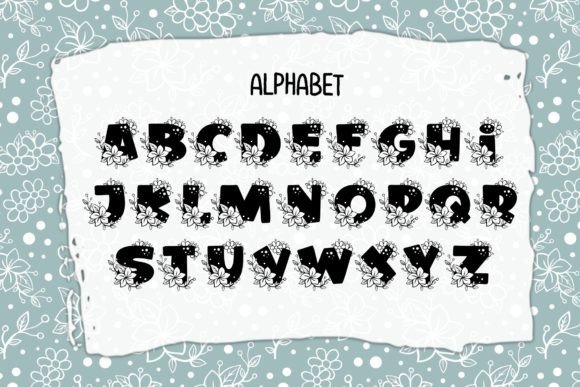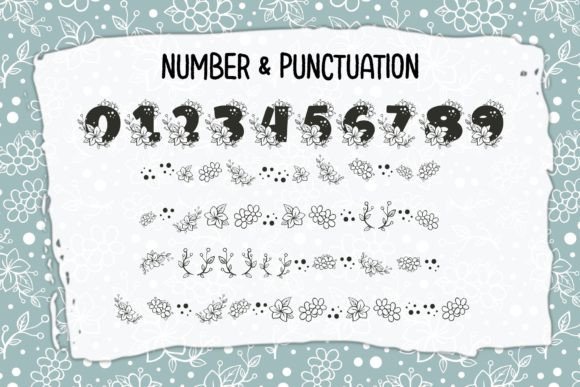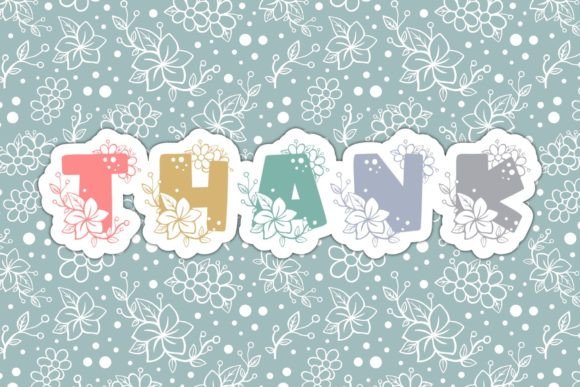
Discover the Charm of Flowers Corner Font: Elevate Your Designs with this Lovely Decorative Font
Are you a designer, crafter, or DIY enthusiast looking for a unique and charming font to elevate your projects? Look no further than Flowers Corner Font! This delightful decorative font is perfect for adding a touch of elegance and whimsy to your logos, branding, social media graphics, and crafty DIY projects. In this article, we’ll dive into the world of Flowers Corner Font and explore its features, uses, and benefits.
What is Flowers Corner Font?
Flowers Corner Font is a beautifully designed decorative font that features intricate floral patterns and elegant lettering. This font is perfect for those who want to add a touch of sophistication and charm to their designs. With its unique and eye-catching style, Flowers Corner Font is sure to make your projects stand out from the crowd.
Features of Flowers Corner Font
So, what makes Flowers Corner Font so special? Here are some of its key features:
• Unique and decorative design: Flowers Corner Font features a one-of-a-kind design that is both elegant and playful.
• Perfect for logos and branding: This font is ideal for creating custom logos, business cards, and other branding materials.
• Great for social media graphics: Add a touch of personality to your social media graphics, such as Instagram posts and Facebook covers.
• Ideal for crafty DIY projects: Use Flowers Corner Font to add a personal touch to your handmade crafts, such as scrapbooking, card making, and sewing projects.
• Easily customizable: This font can be easily customized to fit your specific design needs.
Uses of Flowers Corner Font
Flowers Corner Font is a versatile font that can be used in a variety of design projects, including:
• Logos and branding: Create a custom logo or branding materials that reflect your unique style.
• Social media graphics: Add a touch of personality to your social media graphics, such as Instagram posts, Facebook covers, and Twitter headers.
• Crafty DIY projects: Use Flowers Corner Font to add a personal touch to your handmade crafts, such as scrapbooking, card making, and sewing projects.
• Stationery and invitations: Create beautiful stationery, invitations, and greeting cards with Flowers Corner Font.
• Packaging and labels: Add a touch of elegance to your product packaging and labels with this lovely font.
Benefits of Using Flowers Corner Font
So, why should you choose Flowers Corner Font for your design projects? Here are some benefits of using this lovely font:
• Unique and eye-catching design: Flowers Corner Font is sure to make your projects stand out from the crowd.
• Easily customizable: This font can be easily customized to fit your specific design needs.
• Perfect for a variety of design projects: Flowers Corner Font can be used in a variety of design projects, from logos and branding to social media graphics and crafty DIY projects.
• Time-saving: With Flowers Corner Font, you can create beautiful designs in no time.
Tips for Using Flowers Corner Font
Here are some tips for using Flowers Corner Font in your design projects:
• Experiment with different colors and textures: Add depth and interest to your designs by experimenting with different colors and textures.
• Use it sparingly: Use Flowers Corner Font sparingly to add a touch of elegance to your designs.
• Pair it with other fonts: Pair Flowers Corner Font with other fonts to create a unique and eye-catching design.
In conclusion, Flowers Corner Font is a lovely decorative font that is perfect for adding a touch of elegance and whimsy to your design projects. With its unique and eye-catching design, this font is sure to make your projects stand out from the crowd. Whether you’re a designer, crafter, or DIY enthusiast, Flowers Corner Font is a great choice for your next project.